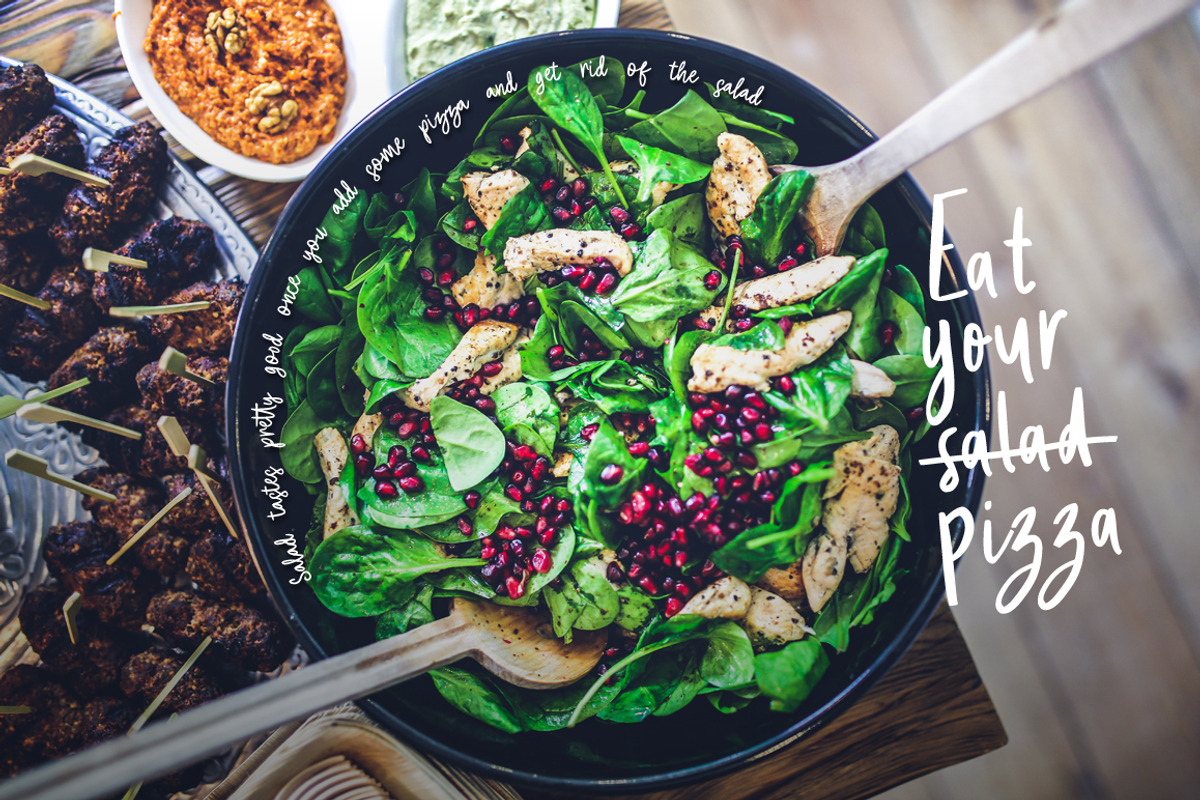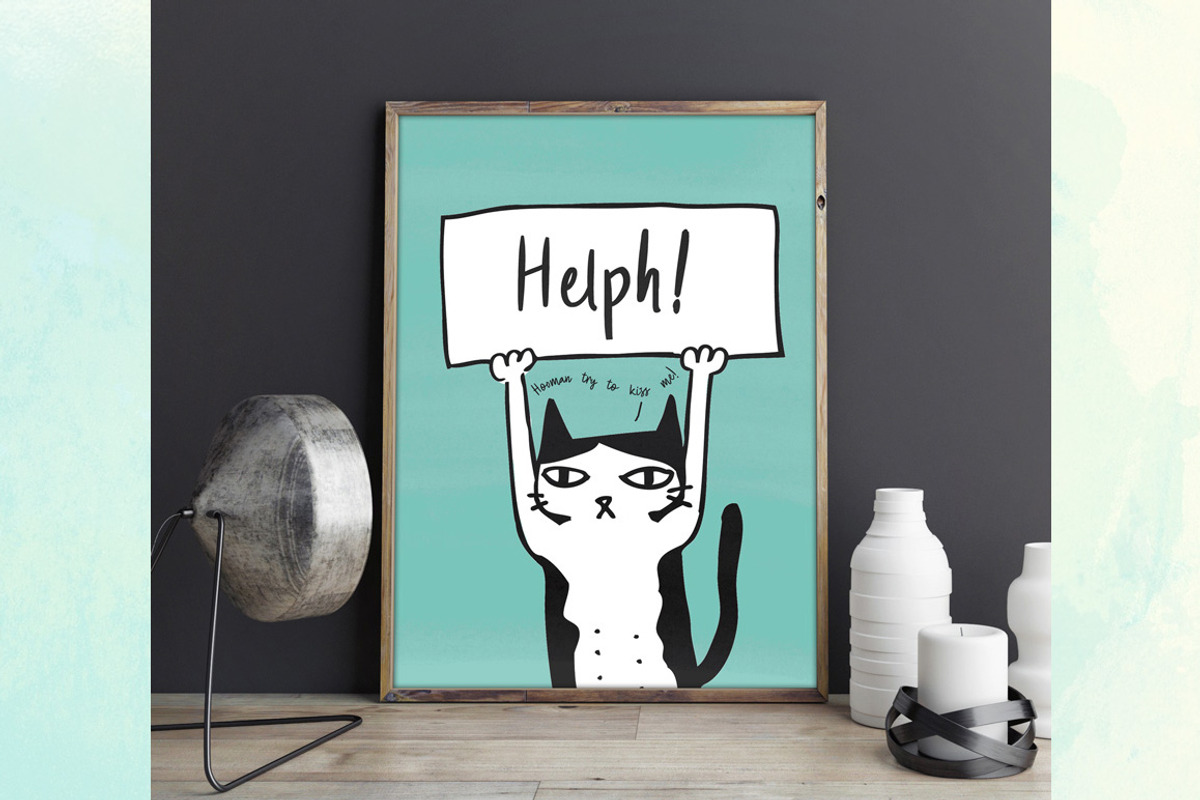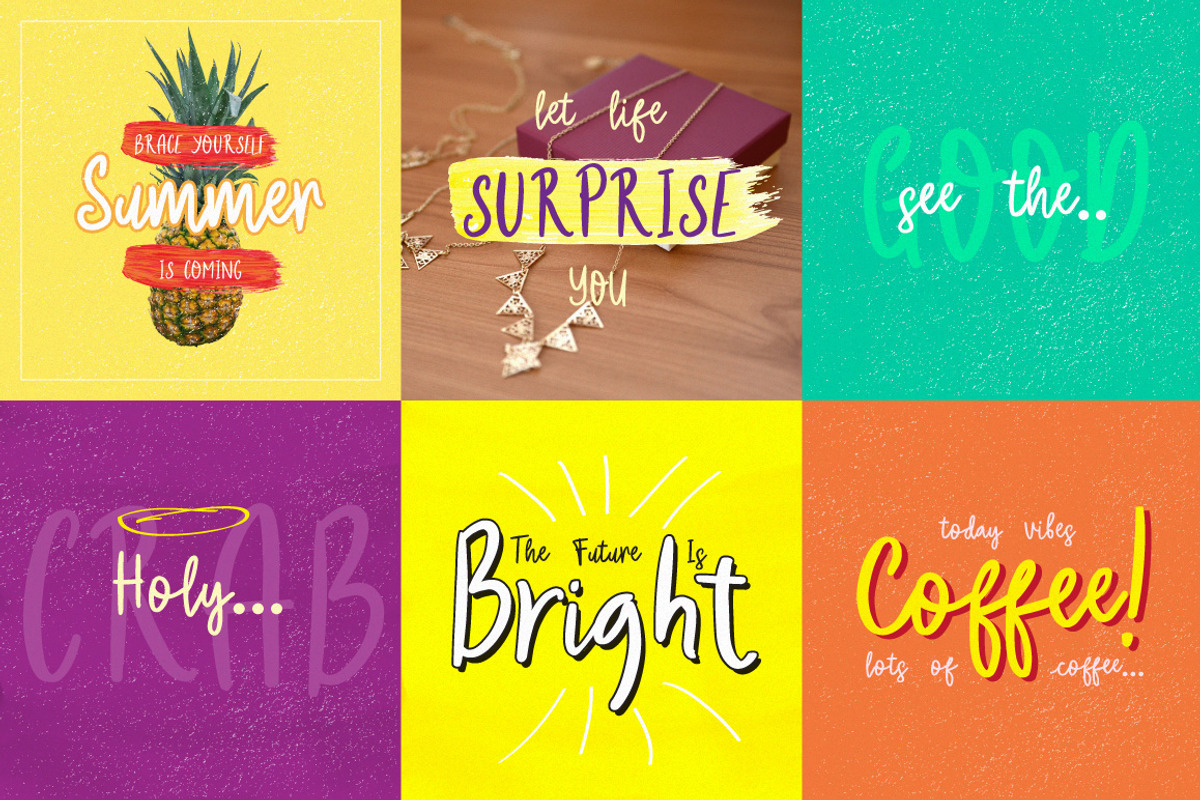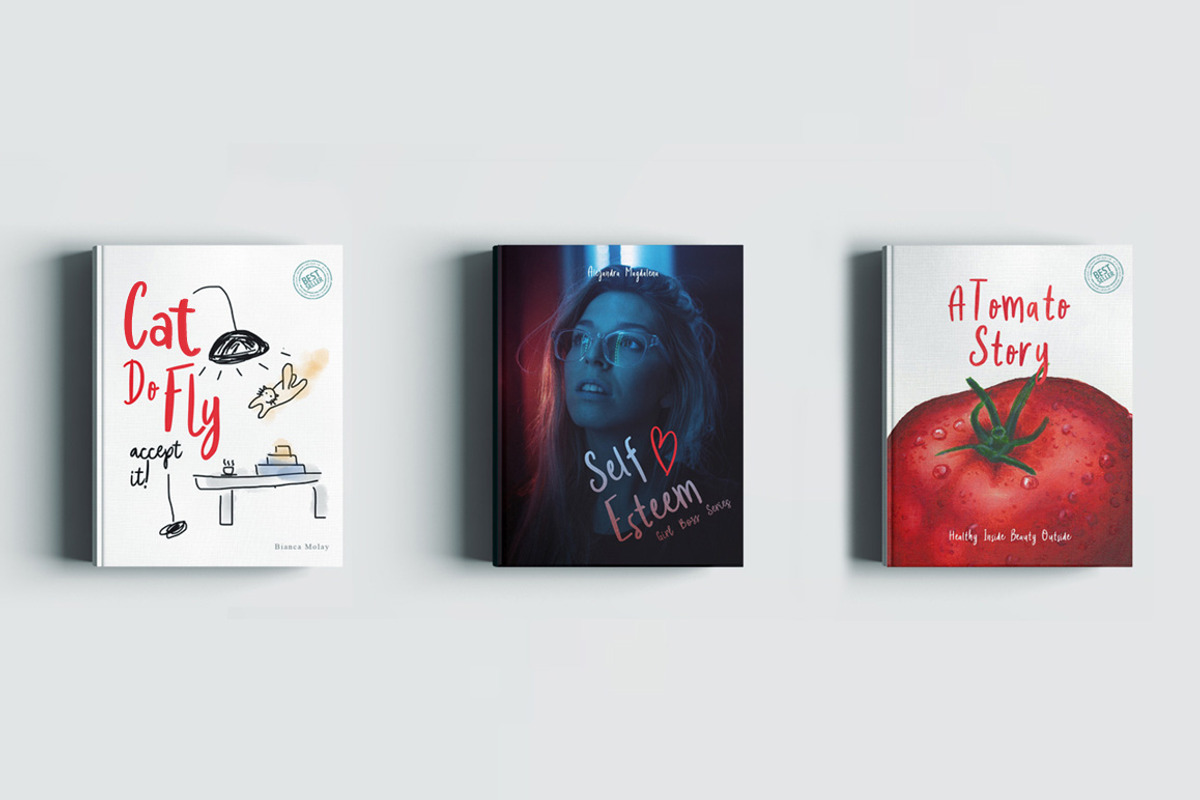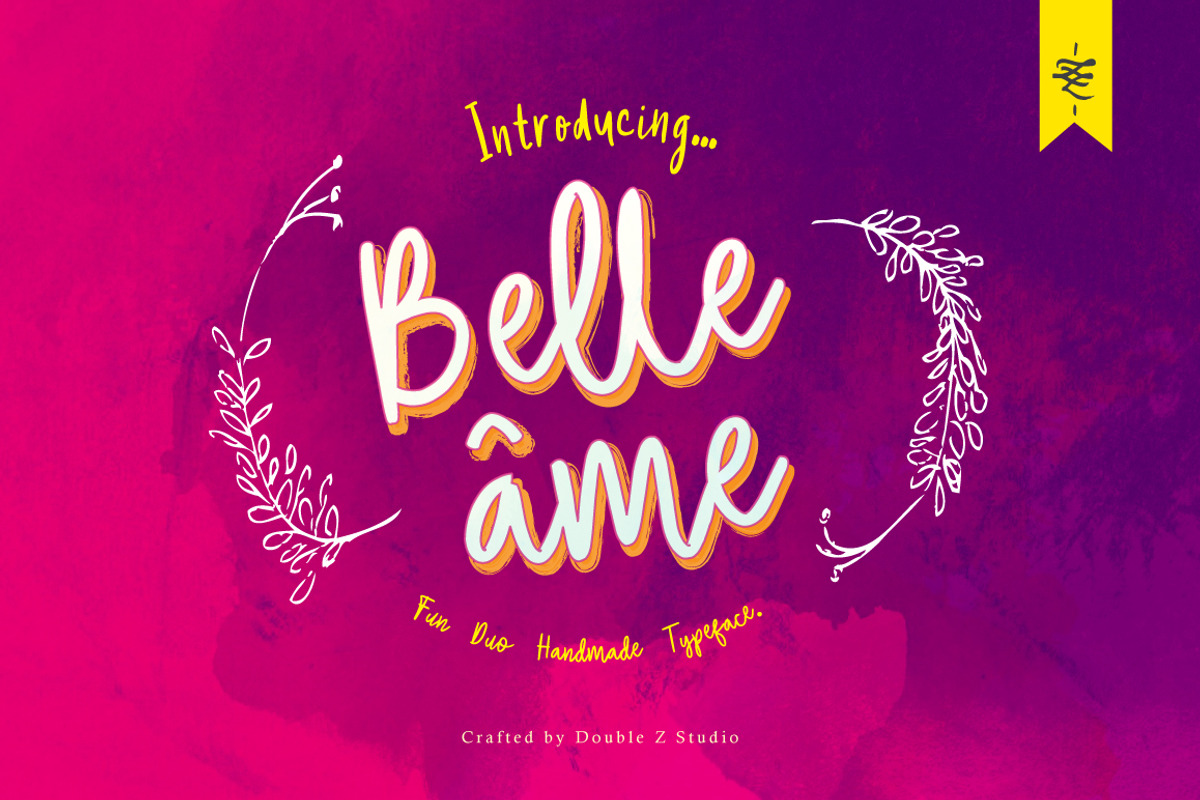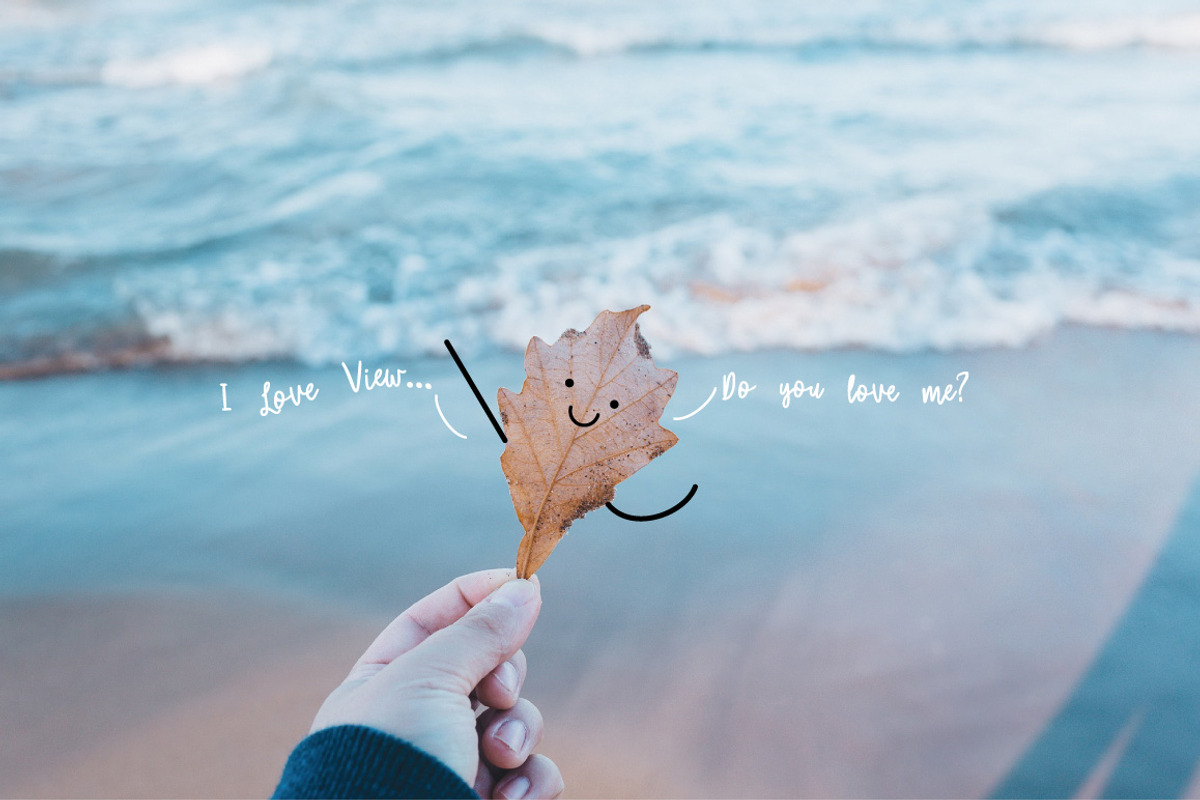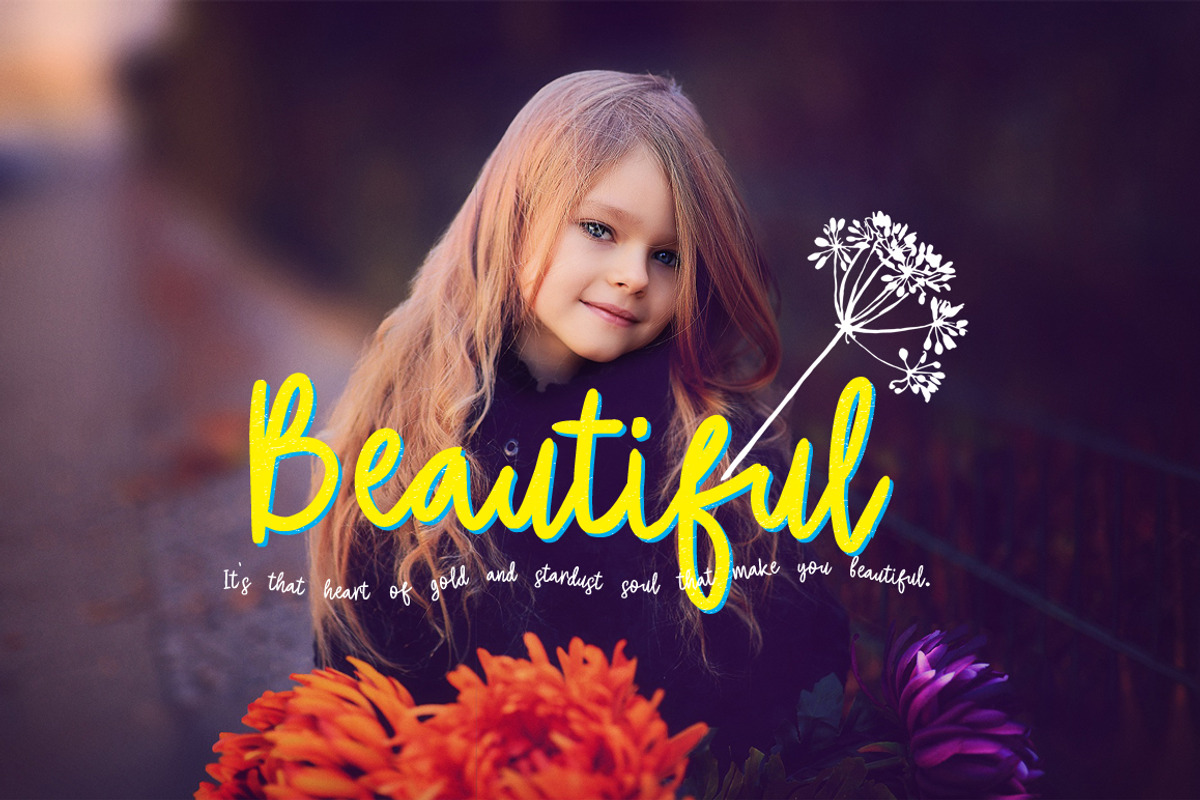
Belle âme - Font Duo
Please introduce the beautiful Belle âme a fun duo typeface. Consisting two typefaces 'Belle âme Script' and 'Cute Trouble', working together to make your design stand out from the crowd.
The two comes in opentype features with alternates character and ligatures get rid the monotonous from your design.
This two sweet couple perfect for designing book covers, film covers, apparel, cards, logos, posters, etc. Opentype features gives you more alternatives in designing. It's also come with webfont.